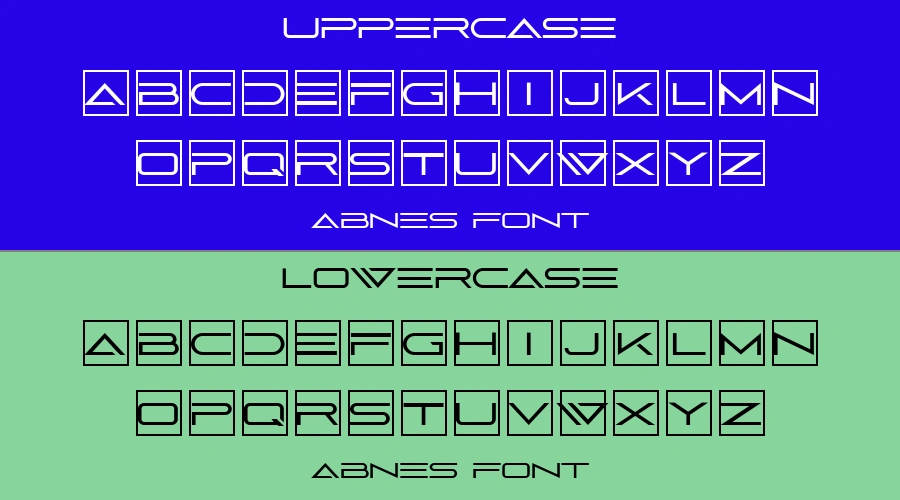
About Abnes Font
When typographic excellence matters most, Abnes Font delivers through its thoughtful blend of systematic design and generational appeal. Specially crafted for wayfinding systems, it offers the integrity and craft excellence required for sophisticated design work. Every detail serves a purpose.
The character set showcases thoughtful details like straight stems alongside functional decorative sets. This proves especially valuable in technical manuals, where impact retention directly influences results. Particular attention was paid to corner treatment and educational suitability during development.